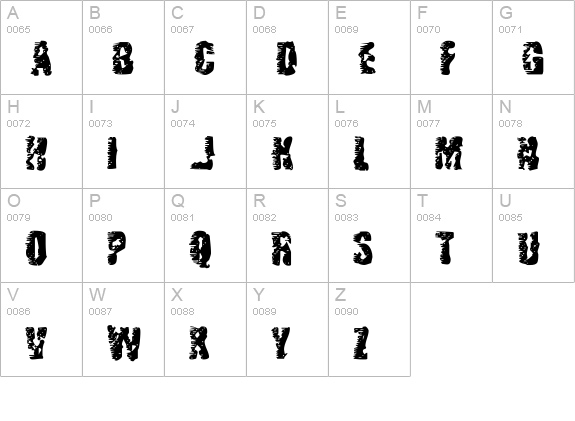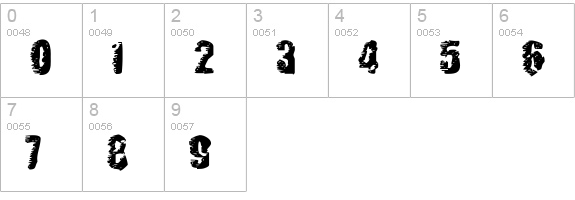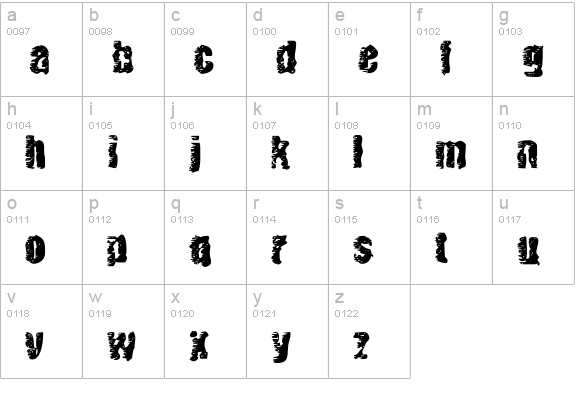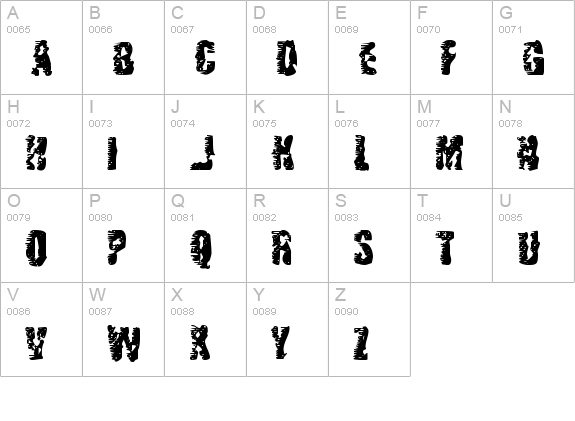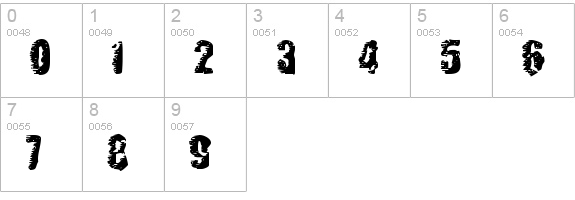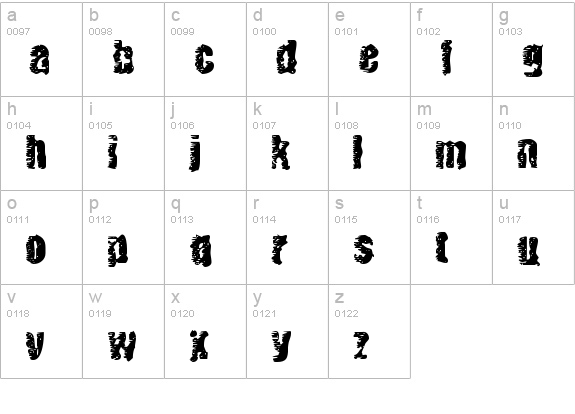
BN BenWitch Project Font Details
The BN BenWitch Project font is a captivating and mysterious typeface that exudes a sense of enchantment and intrigue. With its bold and unique design, this font is perfect for adding a touch of magic to your projects. The intricate details and whimsical curves of the letters give the BN BenWitch Project font a spellbinding quality that is sure to captivate any audience. The best part? The BN BenWitch Project font is completely free to download at FontsMarket.com! You can easily add this enchanting font to your collection and use it in a variety of creative projects. Whether you're designing a poster, crafting a logo, or creating a spooky Halloween invitation, the BN BenWitch Project font is the perfect choice for adding a touch of magic to your work. Download it now and let your creativity soar with this captivating and whimsical font.